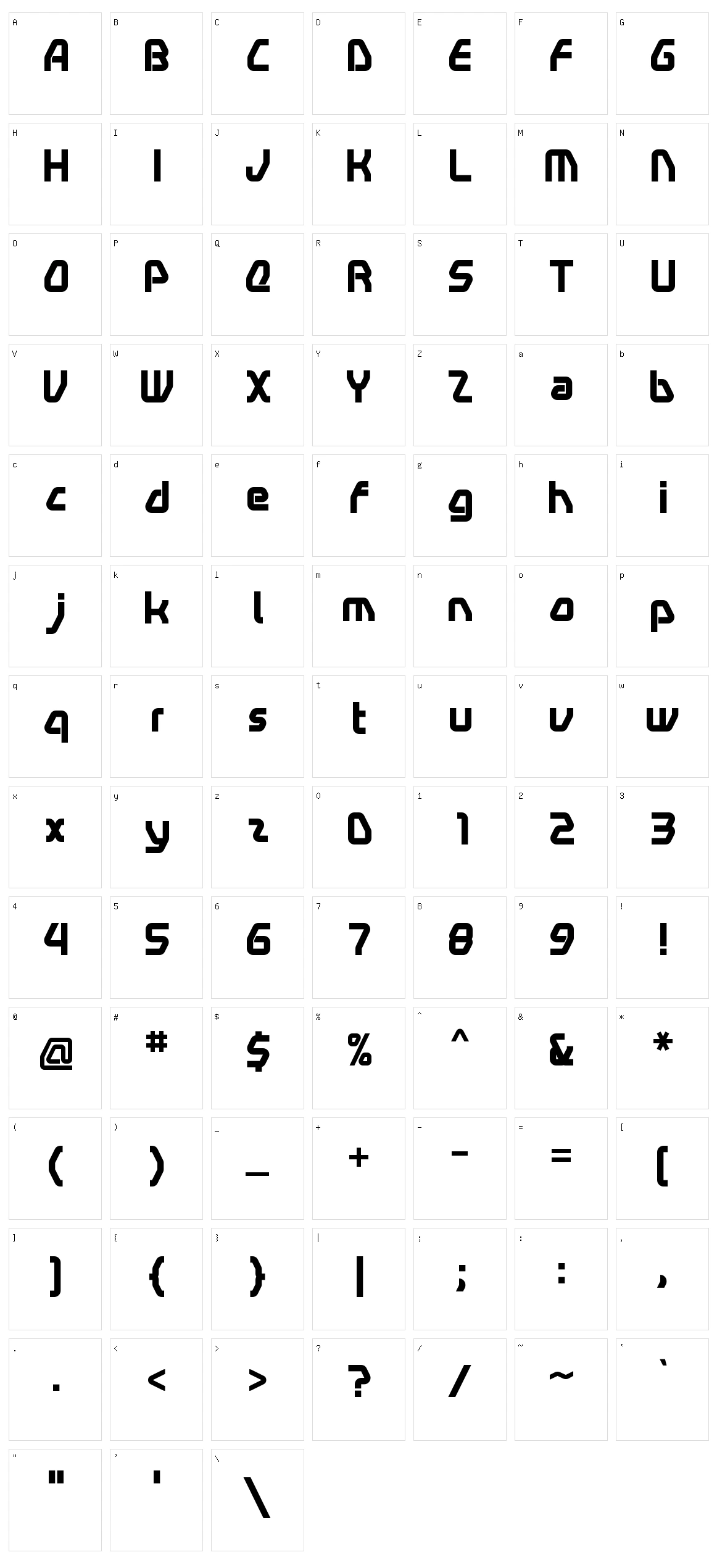
Swerve
Swerve is a COMPLETELY ORIGINAL typeface which was drawn and developed entirely by myself. Swerve is available in three weightsÑregular, bold, and lightÑand includes built-in italics. Each font contains a full character set as well, so you are welcome to use it for other languages beyond English.
Swerve adds to an otherwise overflowing number of technical based fonts, but it differs from the others with its angular shape and its '70s style curves. Swerve is best suited for high-tech and industrial applications, but it's surprisingly flexible, so to speak.